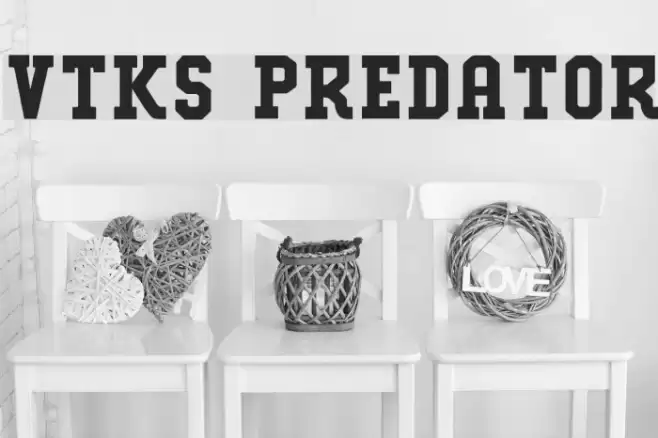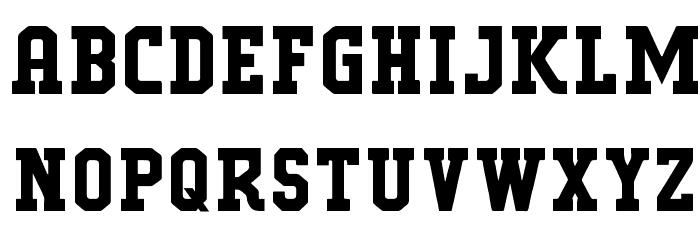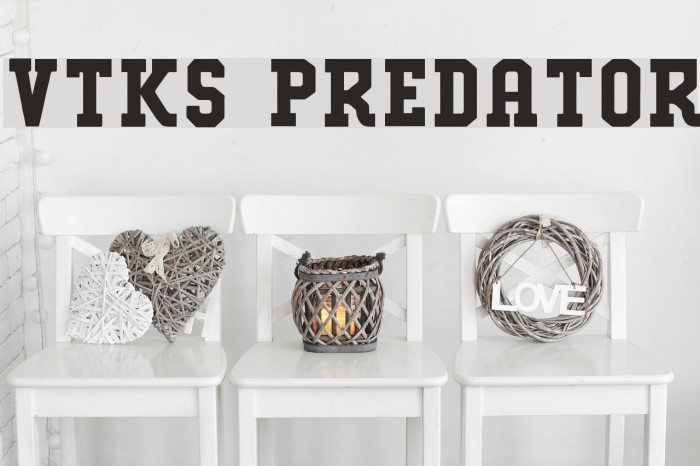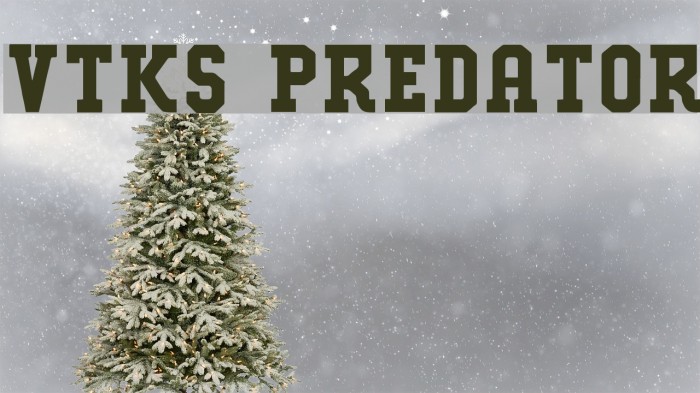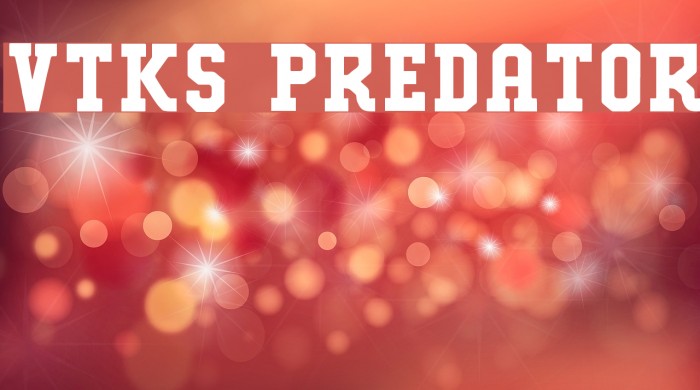
VTKS PREDATOR Font
VTKS PREDATOR Description
This font features a bold, robust design with strong geometric shapes and a distinct industrial feel. The characters are blocky and angular, with consistent stroke widths that convey a sense of strength and stability. The uppercase letters are particularly striking, with sharp edges and a commanding presence. The lowercase letters maintain the same boldness, ensuring readability while retaining the font's unique style. The numbers and special characters are equally bold, making them suitable for attention-grabbing headlines or impactful designs.
A bold, geometric font with an industrial and robust style from Uncategorized fonts.
- Proposed Projects: Ideal for use in posters, logos, branding, and any design that requires a strong, impactful font.
- Overall Style: Industrial, Bold